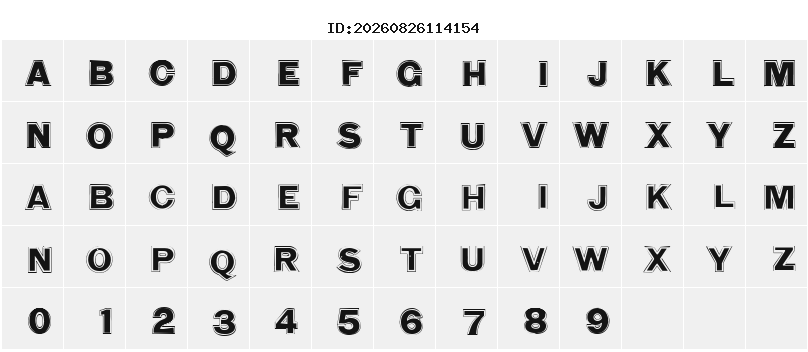
WashingMachine Preview
• Font Name: WashingMachine
• Font Style: Closer
• Font ID: Altsys Fontographer 4.1 WashingMachine Closer
• Full Font Name: WashingMachine Closer
• Version: Altsys Fontographer 4.1 11/10/97
• PostScript Name: WashingMachineCloser
• Character Count: 64
About WashingMachine.ttf
WashingMachine.ttf is a modern, elegant sans-serif font designed for ultimate readability and visual harmony. Perfect for branding, headlines, web design, and print materials.